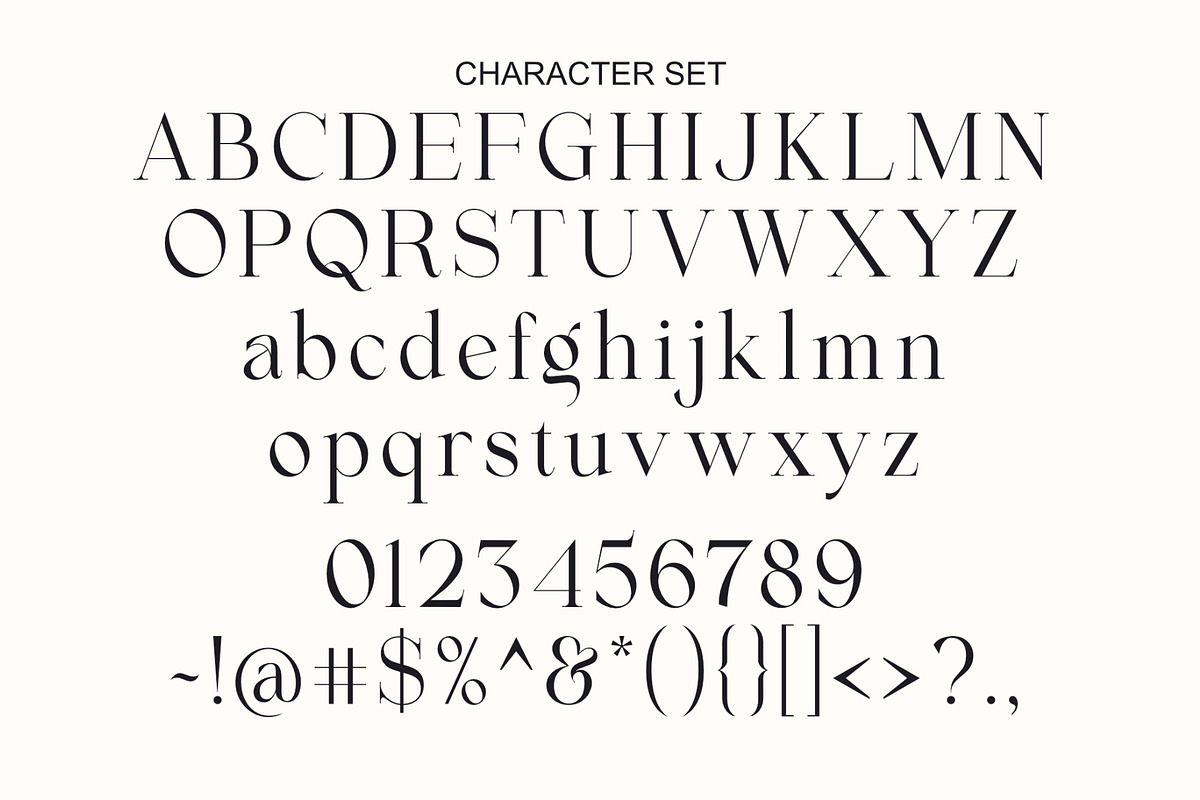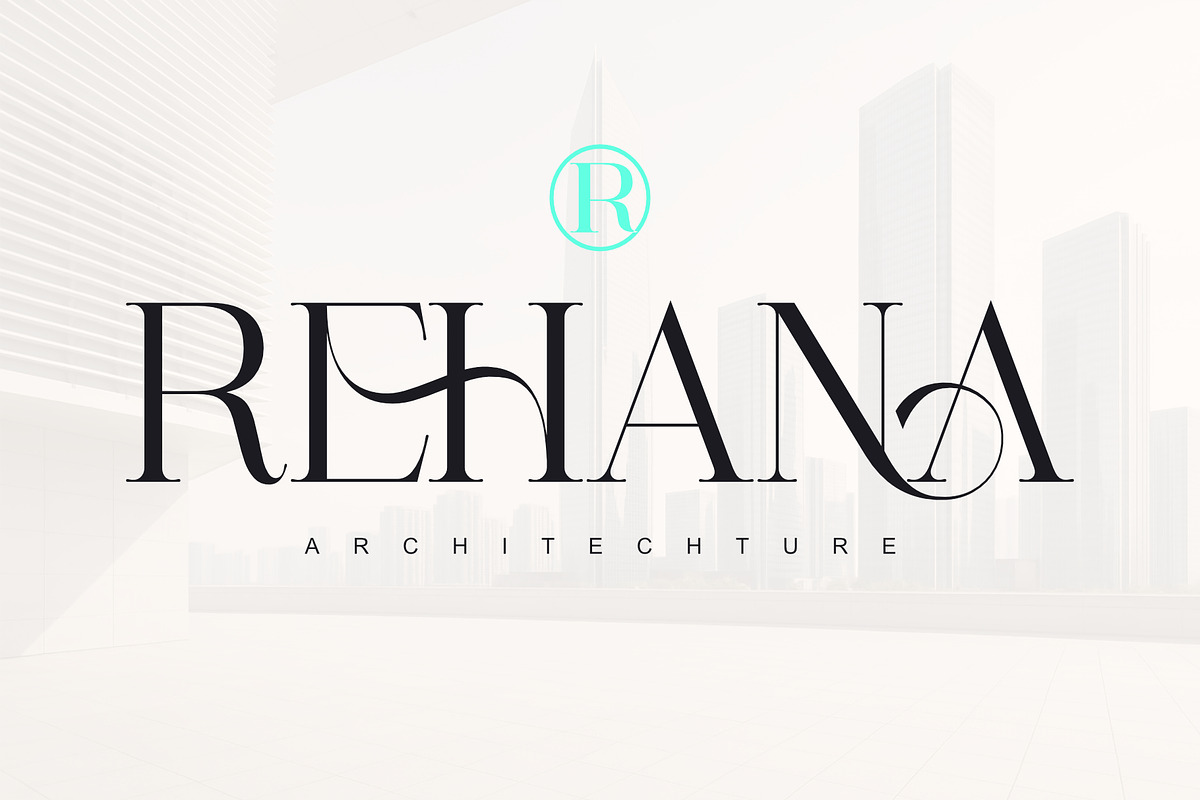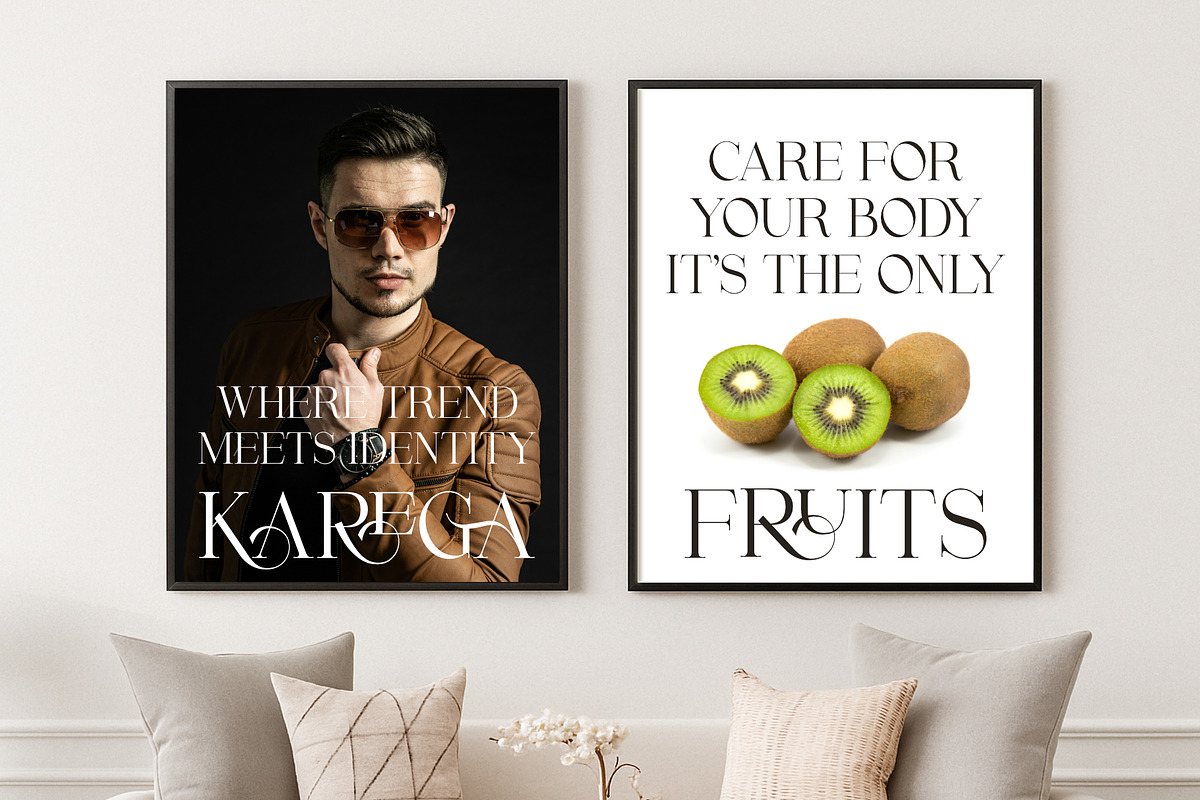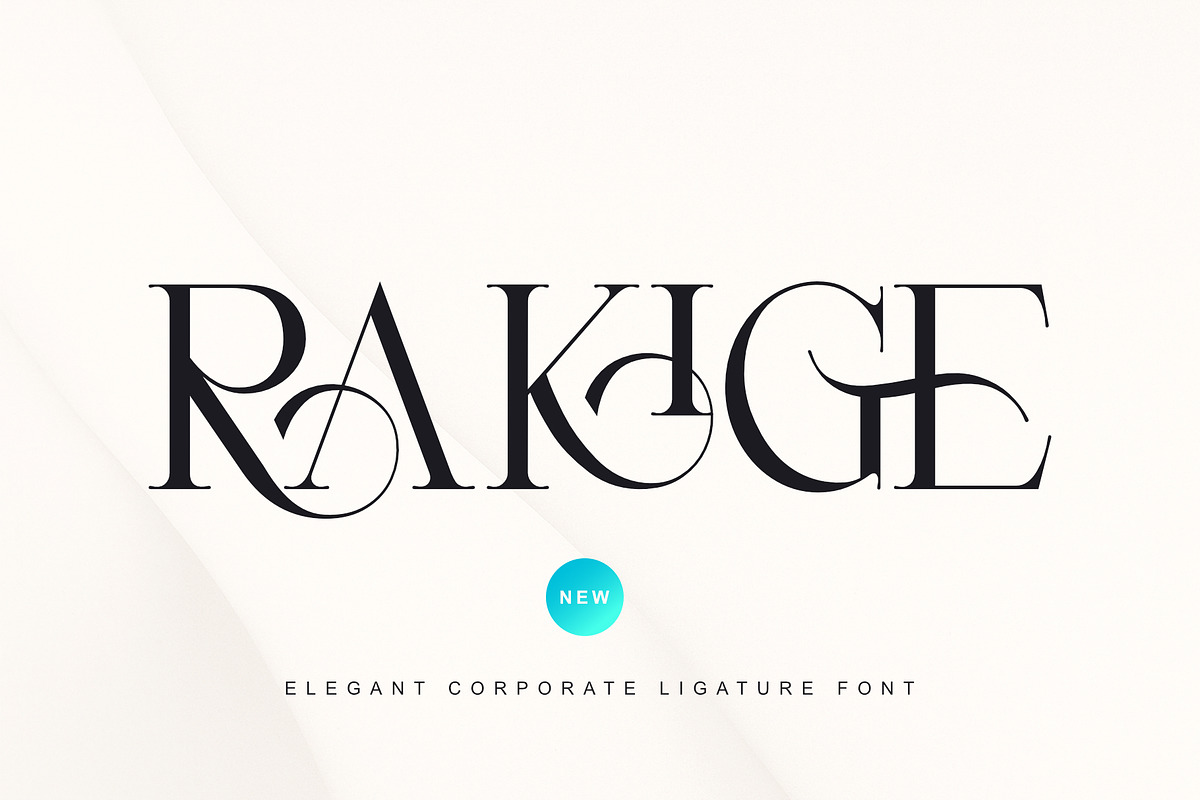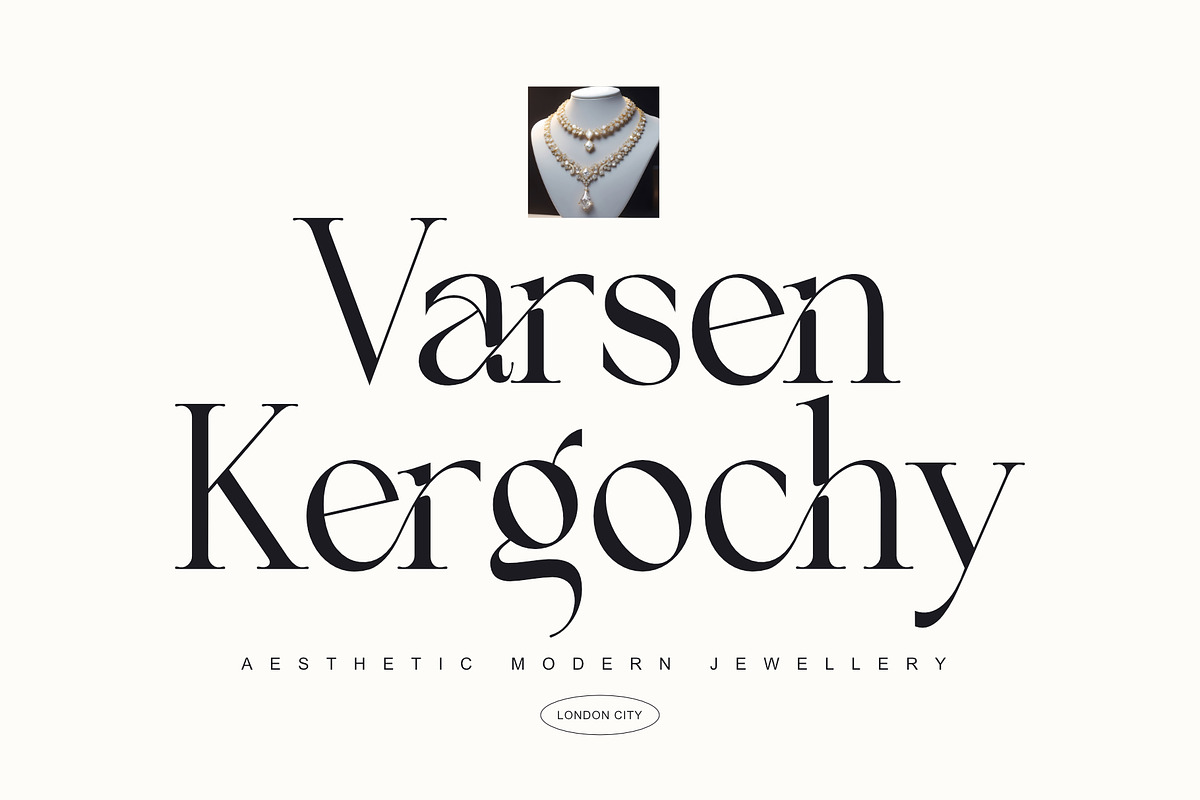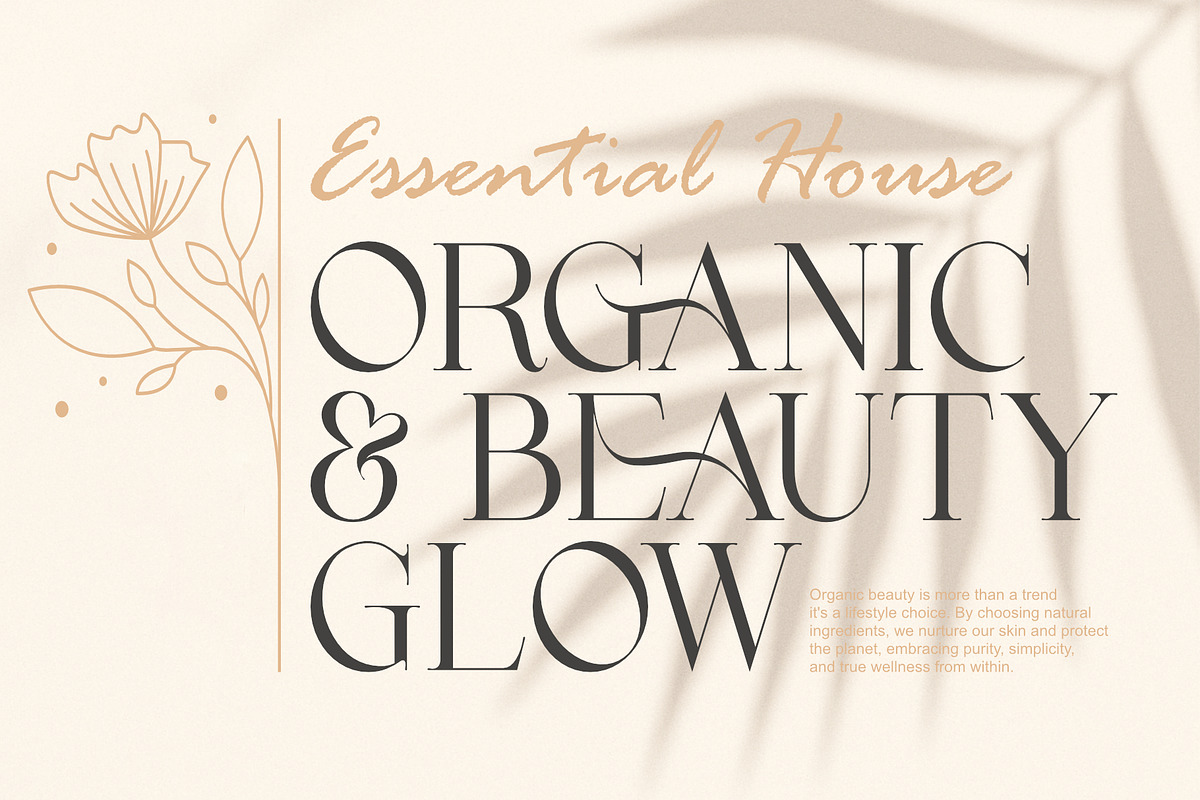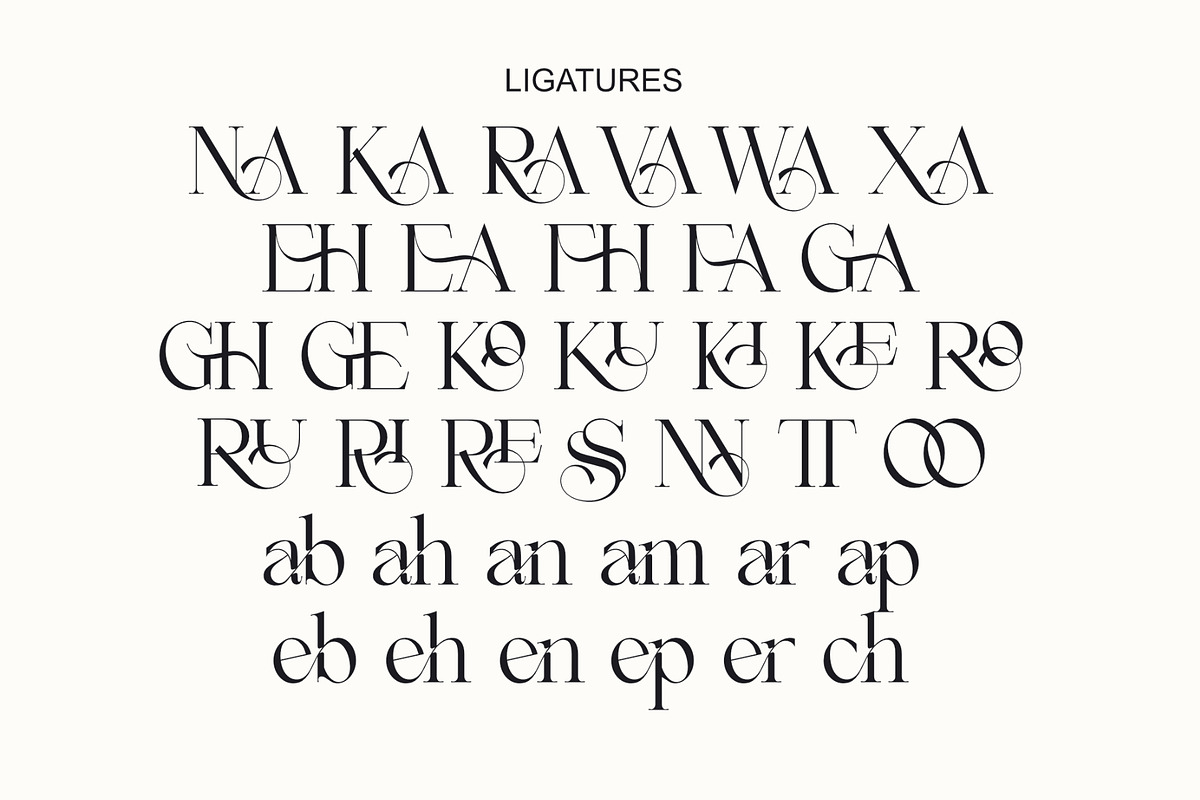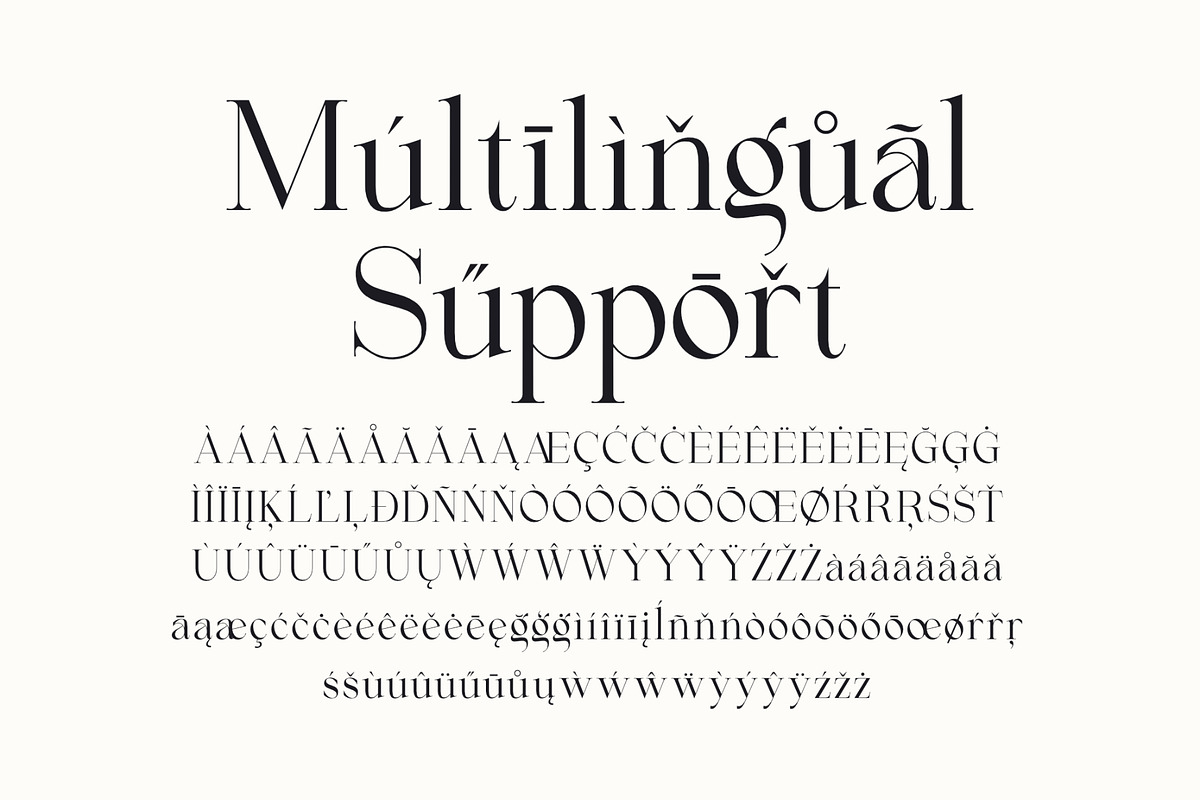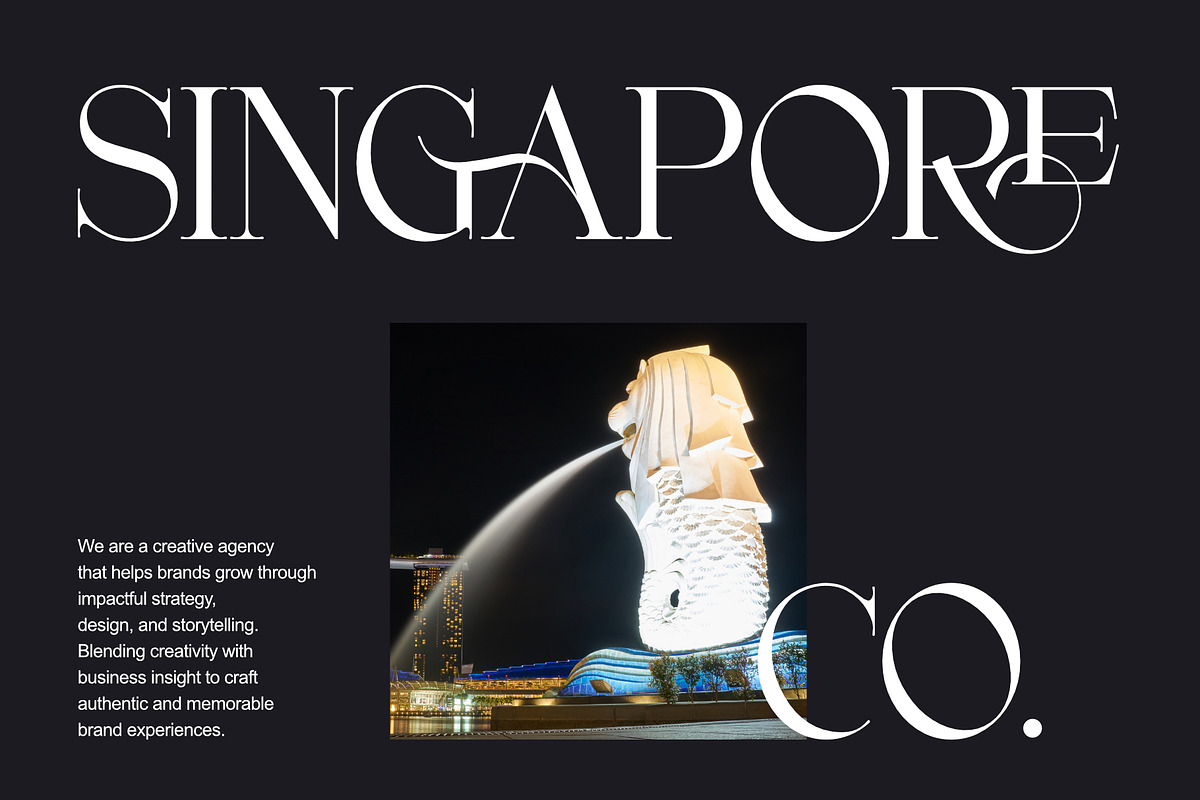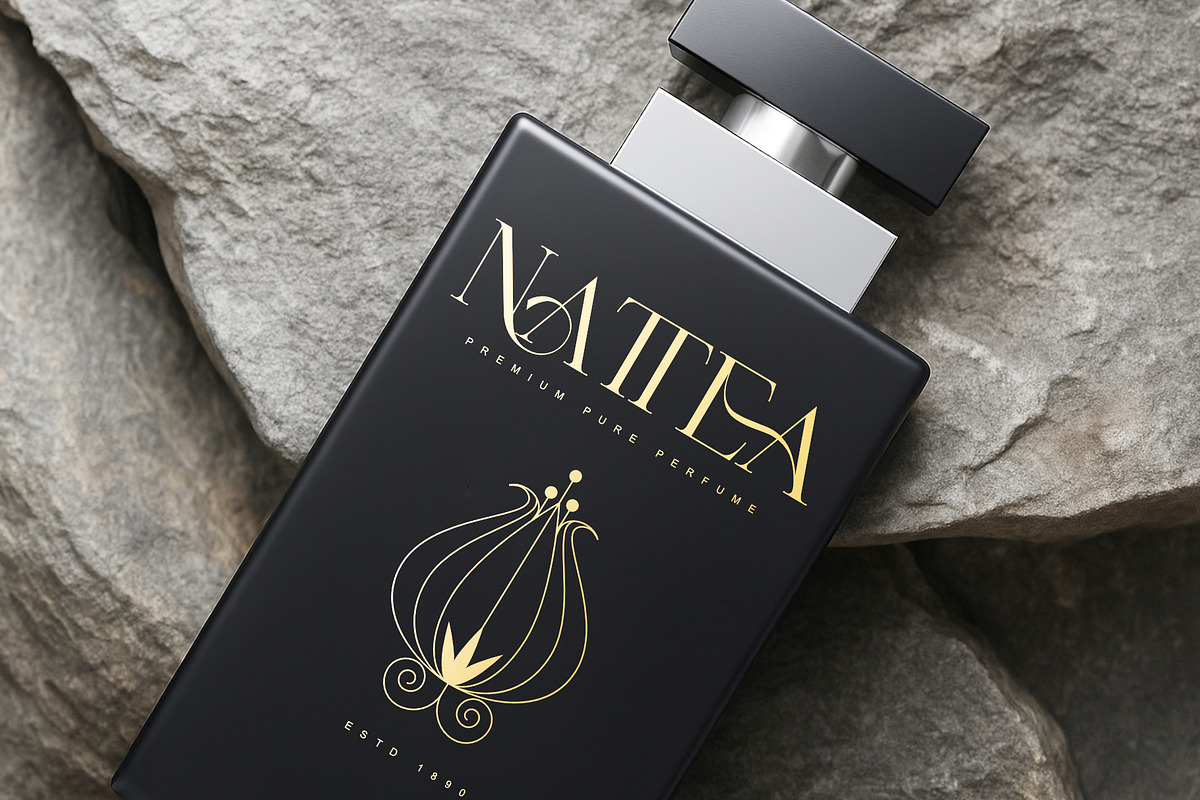
Rakige - Elegant Corporate Ligature
Rakige is a sophisticated modern serif ligature font, meticulously designed for high-end branding and professional visual identities. Its elegant letterforms and distinctive ligatures bring a refined character to any project, making it the perfect choice for luxury design, editorial layouts, or corporate branding.
With thoughtfully crafted ligatures, Rakige offers endless possibilities to enhance your typography with uniqueness and style.
- Elegant ligatures for versatile combinations
- Uppercase and lowercase character set for bold, clean statements
- Number and Punctuation
Let Rakige bring timeless elegance to your next design.